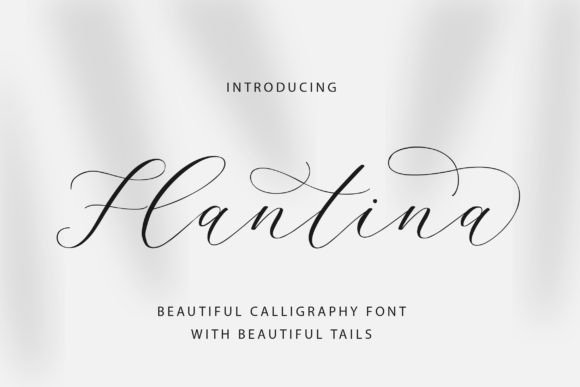
Introducing Flantina Font, a captivating script font designed to elevate your designs and leave a lasting impression. Created by Bellinghamtype, this font offers a perfect blend of class, elegance, and modernity, making it the ideal choice for various design purposes.
With its stunning handwritten touch, Flantina Font is a must-have for anyone in search of a font that exudes sophistication. Whether you're designing a logo, branding materials, invitations, or stationary, this font will add a touch of charm and uniqueness to your creations.
Imagine the impact your brand can make with Flantina Font. Its graceful curves and intricate details will effortlessly capture attention and leave a lasting impression on your audience. From fashion brands to luxury products, this font will help you create a visual identity that speaks volumes.
Not limited to printed materials, Flantina Font is also perfect for digital designs. Social media posts, website headers, and digital ads will come alive with the elegant strokes and flowing lines of this font. It effortlessly combines legibility with a touch of creativity, making it a versatile choice for any online platform.
Flantina Font is more than just a font; it's a tool that allows you to express your creativity and make a statement. Its versatility makes it suitable for a wide range of styles and themes, allowing you to create designs that truly reflect your vision.
Unleash your imagination and let Flantina Font be the catalyst for your design journey. Embrace its captivating charm and watch as your designs come to life with every stroke. With this font, you have the power to captivate, inspire, and evoke emotions in your audience.